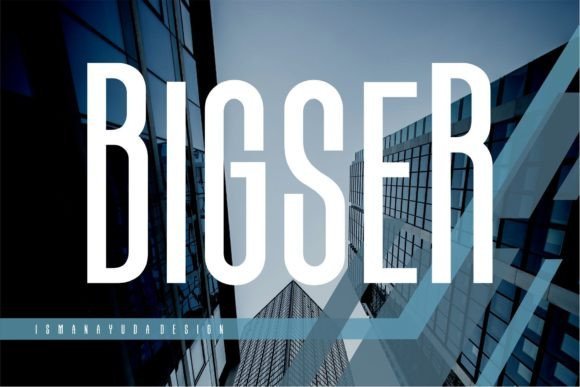
Have you ever stared at a blank page, trying to come up with the perfect font to match your design? I know I have. The cursor blinks, and your mind goes blank, until suddenly, the perfect font pops into your head. For designers, finding the right font can make all the difference in bringing a project to life. And that’s exactly where the Bigser Font comes in – a versatile and modern sans serif font that’s perfect for a wide range of applications.
From websites and logos to posters and presentations, Bigser Font is a valuable asset for designers. Its clean and sleek design makes it easy to read and understand, while its versatility ensures it will always fit in with your design vision. Whether you’re a seasoned pro or just starting out, Bigser Font is an essential tool to have in your design arsenal.
Key Features of Bigser Font
- Font Size: The font comes in 5 weights (Thin, Light, Regular, Medium, and Bold) to cater to different design needs.
- Unique Characteristics: The Bigser Font features a unique blend of modern and vintage elements, with clean lines, geometric shapes, and subtle texture.
- Scalability: The font is designed to be highly scalable, allowing it to adapt to various font sizes and styles without compromising on legibility.
Bigser Font Review
Bigser font is an interesting addition to any design project, bringing a unique aesthetic to the table. ✨ The bold, playful strokes and quirky character shapes work well in situations where you want to add a touch of whimsy to your design. It’s perfect for creating eye-catching headlines, promotional materials, or even branding for a startup or small business.
The font is available in a range of weights, from light to bold, allowing you to tailor the look to suit your needs. The range of languages supported is also a plus, making it a versatile option for designers working on global projects. ✨ The font’s compatibility with most operating systems and devices is also a significant advantage.
- ⚠️ Limited use in formal or professional settings: Bigser’s playful nature may not be suitable for all types of design projects, particularly those requiring a more formal or conservative tone.
- ⚠️ Limited scalability: While the font is available in multiple weights, it may not be the best choice for large-scale or high-resolution designs, where the font’s quirky nature may become overwhelming.
Overall, Bigser font is a solid choice for designers looking to add some personality to their projects. While it may not be suitable for every design scenario, it’s a great option for those who want to inject some fun and creativity into their work.
Bigser Font: A Practical Application Guide
The Bigser Font is ideal for:
- Headings and titles in branding materials.
- Body text in digital magazines and newsletters.
- Product labels and packaging design.